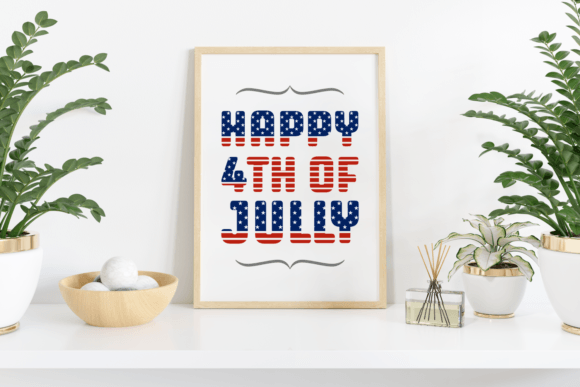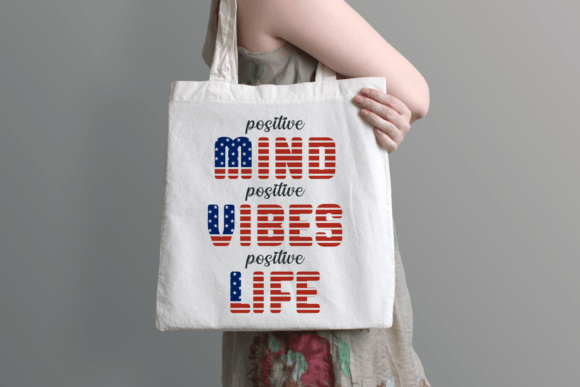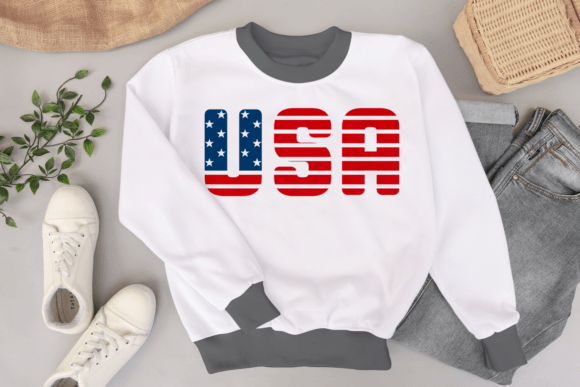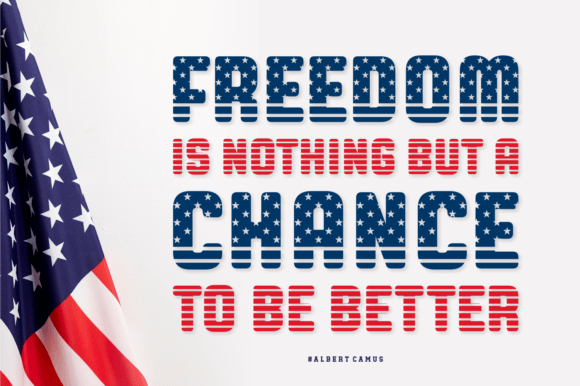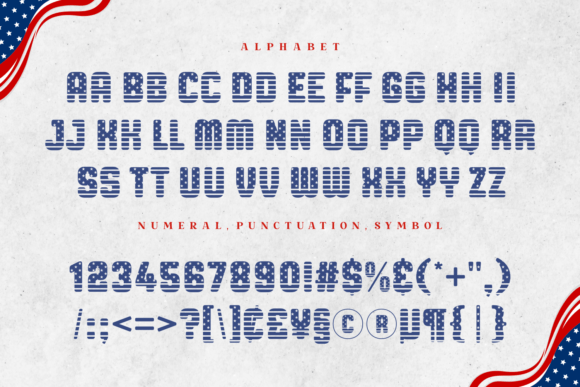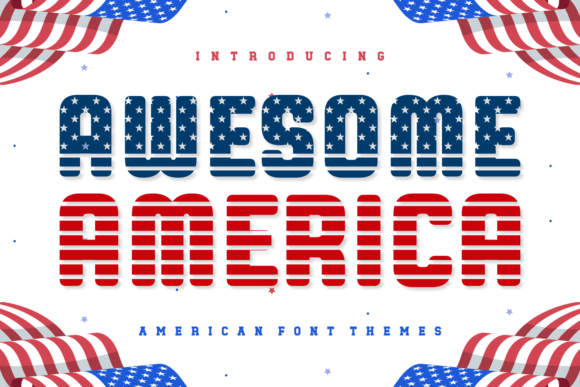
The Ultimate Guide to Awesome America Font: Celebrating Patriotism in Design
- ✨ Perfect for patriotic projects: This font is a game-changer for designs that require a touch of American patriotism. It’s perfect for Independence Day, Veterans Day, Memorial Day, or any project that celebrates American culture and history.
- ✅ Easily recognizable: The font’s distinctive design makes it easily recognizable as a symbol of American patriotism. It’s a great way to add a sense of national pride and identity to your designs.
- ⚠️ Limited use cases: While the font is perfect for patriotic projects, it may not be the best choice for other design projects that require a more neutral or versatile font.
- 🤔 Glyph limitations: While the font has a range of glyphs and OpenType features, it may not have as many options as some other fonts on the market.
The Designer Inspiration Behind Awesome America Font
The Awesome America Font was designed by a team of creatives who wanted to capture the essence of American patriotism. Inspired by the American flag and the country’s rich history, they created a font that’s both bold and elegant. The font’s distinctive design makes it a great way to add a touch of national pride and identity to any design project.
| Font Name | Awesome America Font |
| Author | Rizkky (7NTypes) |
- Q: What is the Awesome America Font?
- A: The Awesome America Font is a decorative font that’s perfect for projects that celebrate American culture, history, or events.
- Q: Is the Awesome America Font available in different styles?
- A: Yes, the Awesome America Font comes in a range of styles, including bold, regular, and italic.